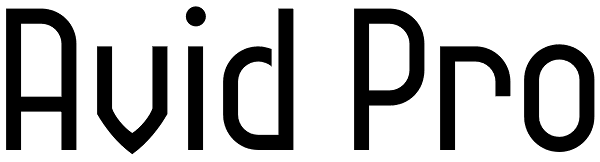
Avid Pro
Avid Pro font family is designed by Naghi Naghashian. A modern interpretation of classic Sans Serif characters in 6 weights: Thin, Light, Regular, Demi Bold, Bold and Heavy. The character set of this Font family supports most western languages...